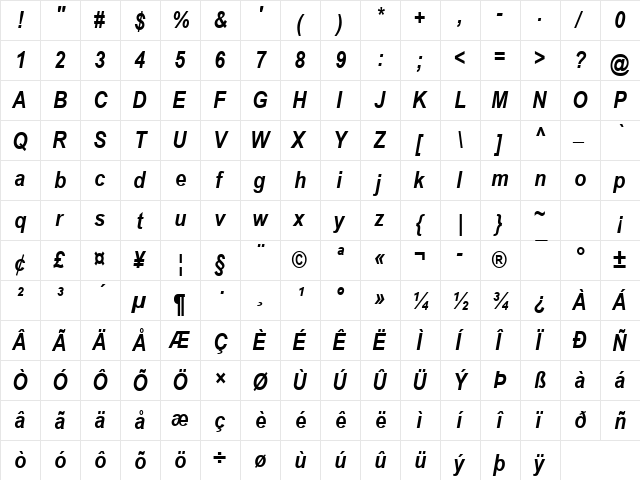
Arial Narrow Bold Italic Font Preview
| Foundry | The Monotype Corporation |
| Designer | Robin Nicholas, Patricia Saunders |
Design Context for Arial Narrow Typeface
Arial Narrow offers clean, dependable letterforms without strong stylistic allegiance, making it a practical choice for designers who need flexibility. The dynamic lean of this cut emphasises speed and emphasis in any layout. The heavy weight commands attention and anchors typographic hierarchies. Its narrow stance lets it pack a punch even in space-constrained designs.
Pro Tip: Try Arial Narrow for annotation and caption copy alongside an upright companion — the contrast in angle creates a dynamic but ordered typographic system.